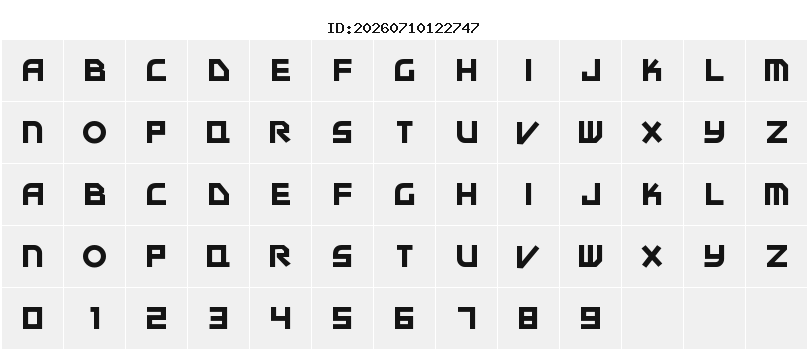
E4 Craze Preview
• Font Name: E4 Craze
• Full Font Name: E4 Craze
• Designer: Daniel
About E4 Craze.ttf
E4 Craze.ttf is a modern, elegant sans-serif font designed for ultimate readability and visual harmony. Perfect for branding, headlines, web design, and print materials.